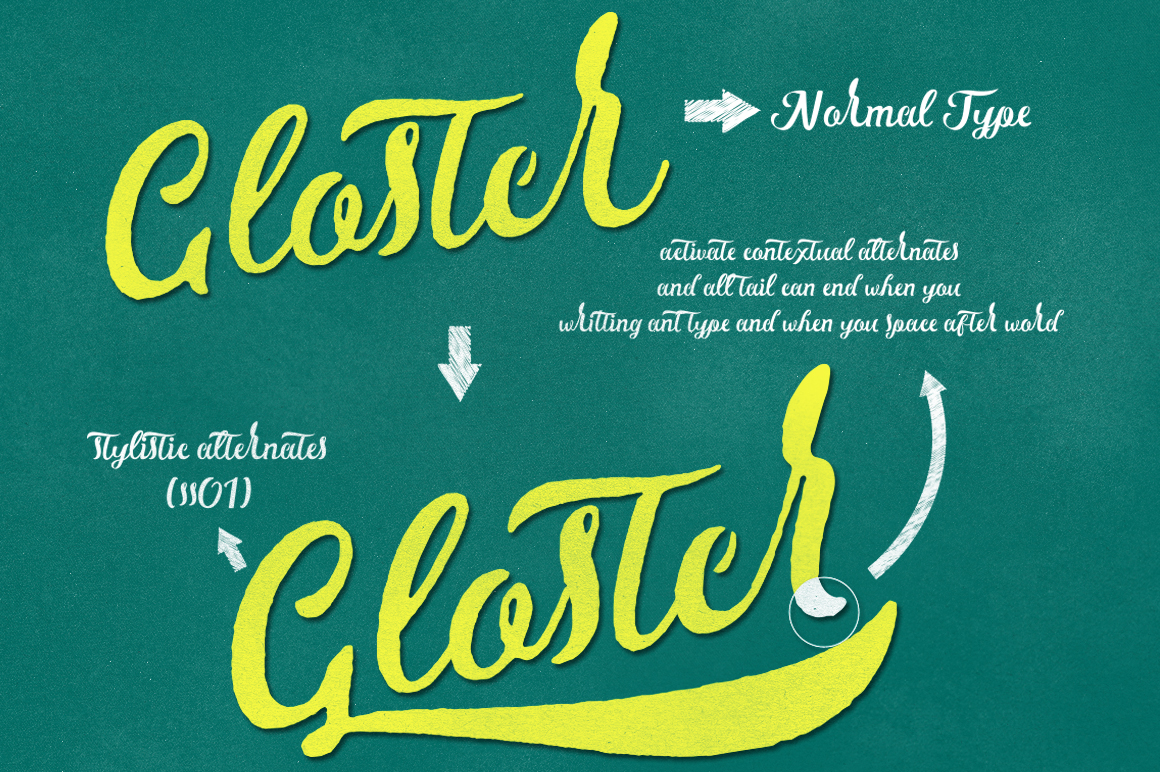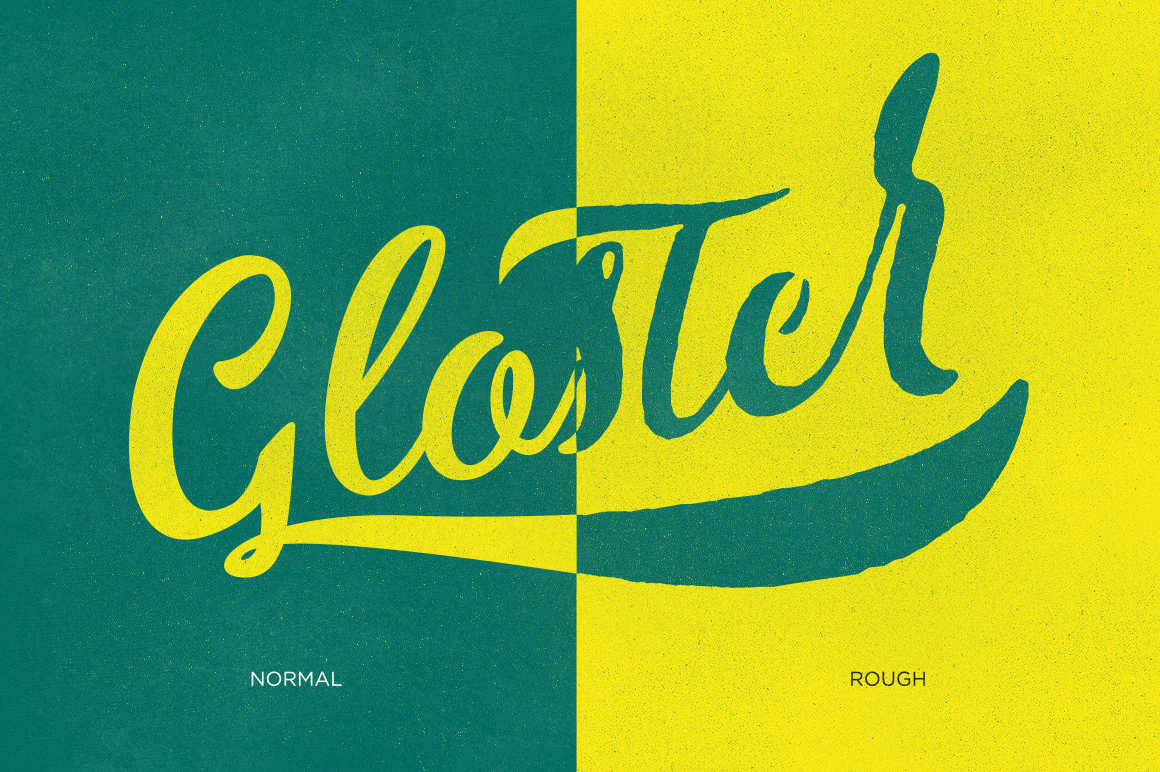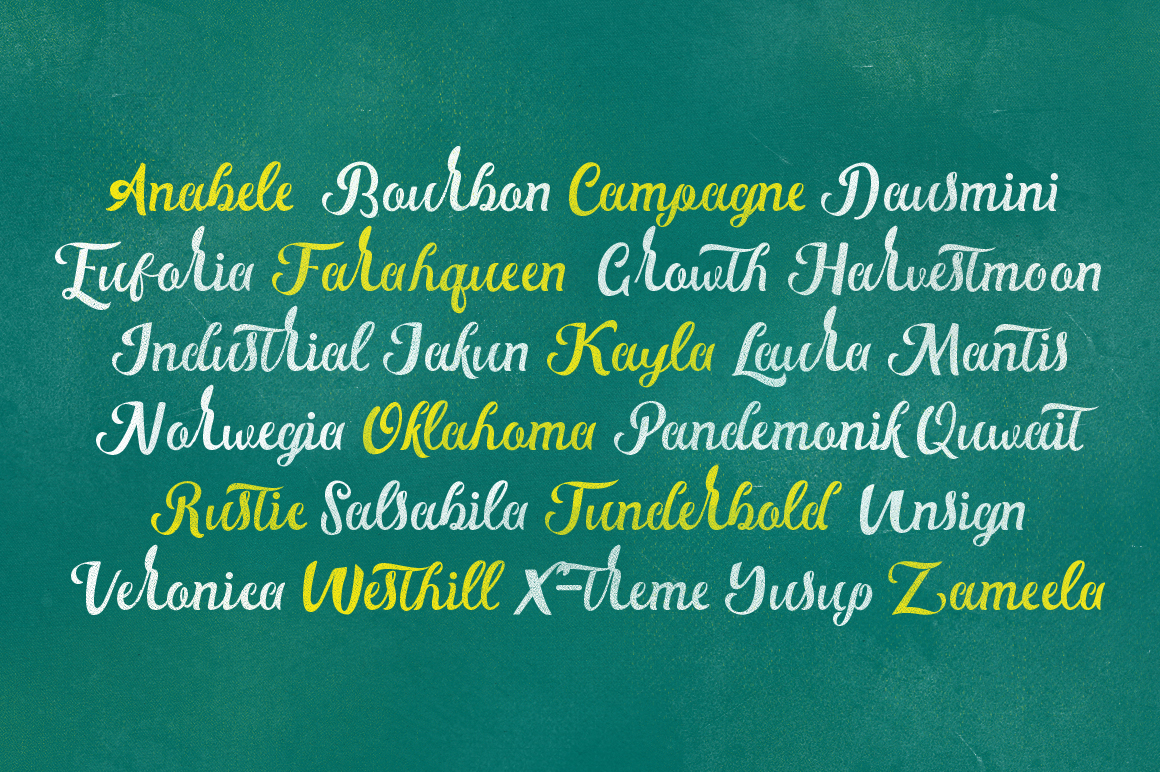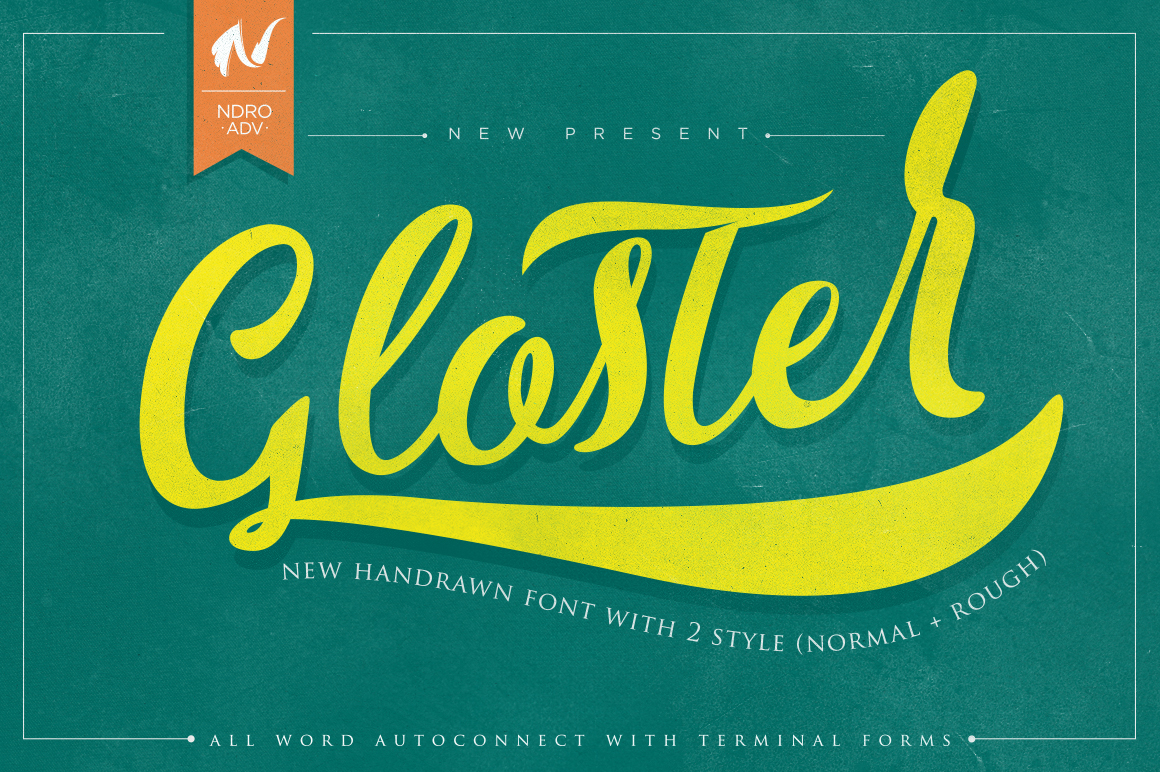
Gloster
Gloster Script Font
Introducing Gloster Typeface a new modern script typeface with a vintage touched on a rustic typeface. all type autoconnect with coding so when you activate contextual alternates the tail on all caps can hide when you space bar all the word.